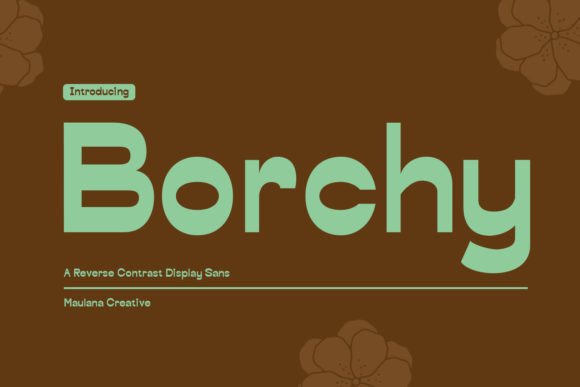
Buckle up for a typographic adventure with Borchy Font, the display font that's breaking boundaries and redefining aesthetics. Immerse yourself in a world of captivating letterforms, where reverse contrasts ignite a visual symphony like no other.
Meet Borchy, your creative partner in crime. Borchy is not just a font; it's a gateway to expressing your individuality and making a bold statement. From web design to branding, Borchy's got your back.
Picture this: Your website adorned with Borchy's unique charm, captivating visitors with its mesmerizing aura. Your social media posts exuding an air of sophistication, leaving your followers in awe. Borchy is the ultimate attention-grabber, turning heads wherever it goes.
But Borchy isn't just about aesthetics; it's about functionality too. With its crisp lines and legible structure, Borchy ensures your message is conveyed with crystal clarity. Whether it's a captivating headline, an informative paragraph, or a call-to-action that demands attention, Borchy delivers flawlessly.
Join the ranks of design enthusiasts who've embraced Borchy's allure. Unleash your creativity, let your imagination soar, and watch as Borchy transforms your projects into masterpieces.